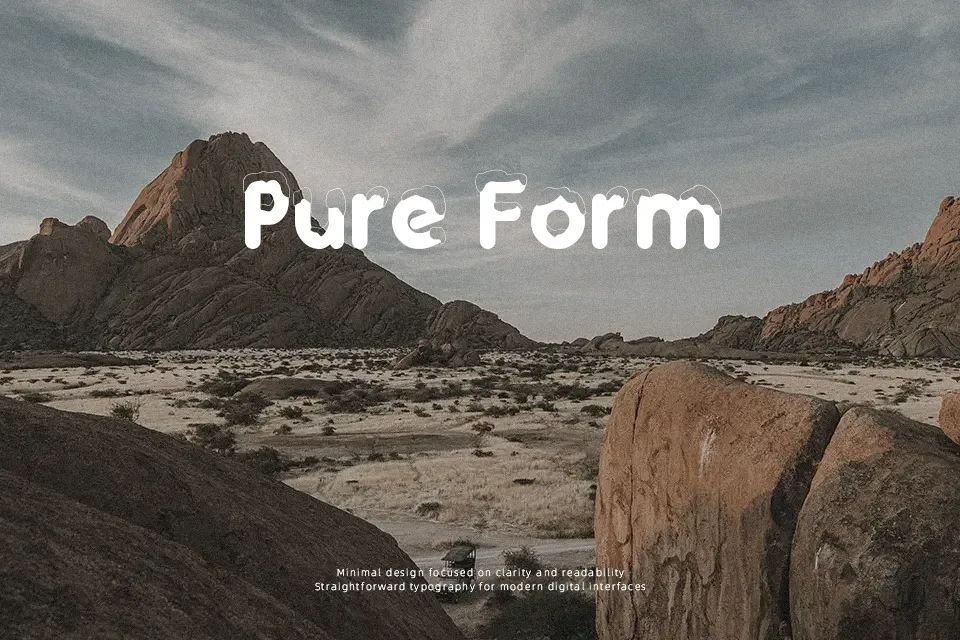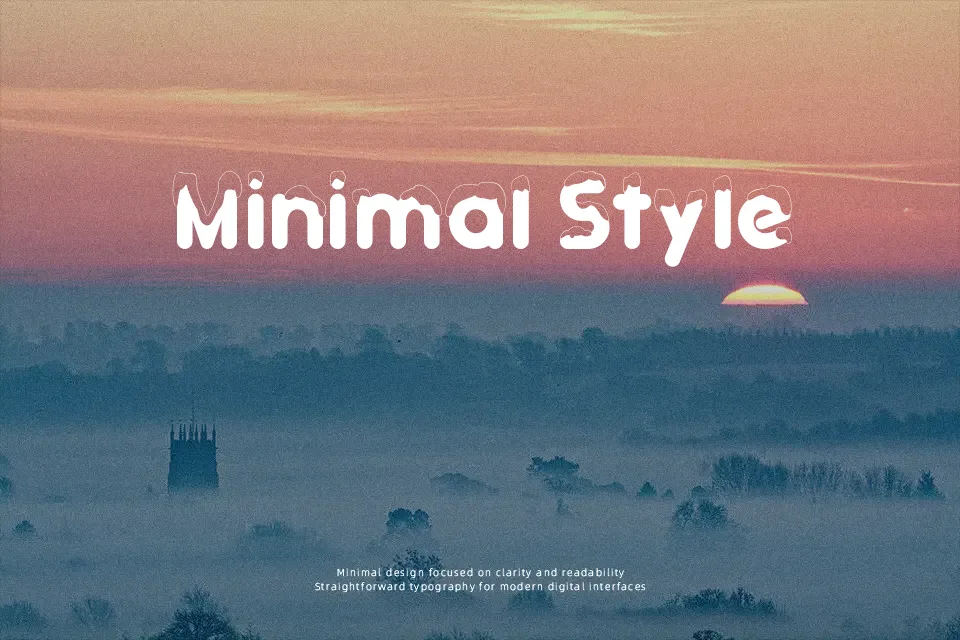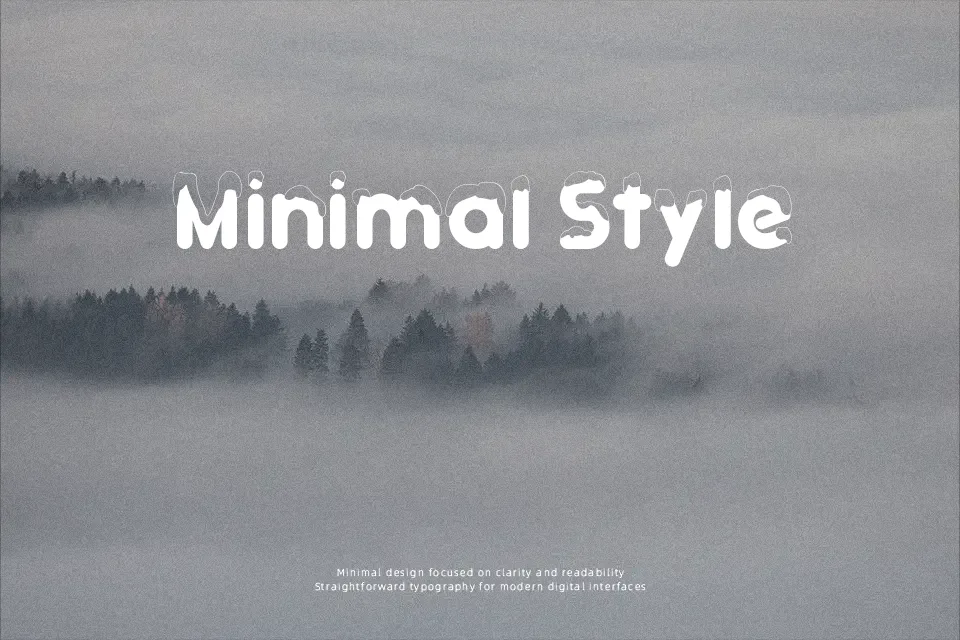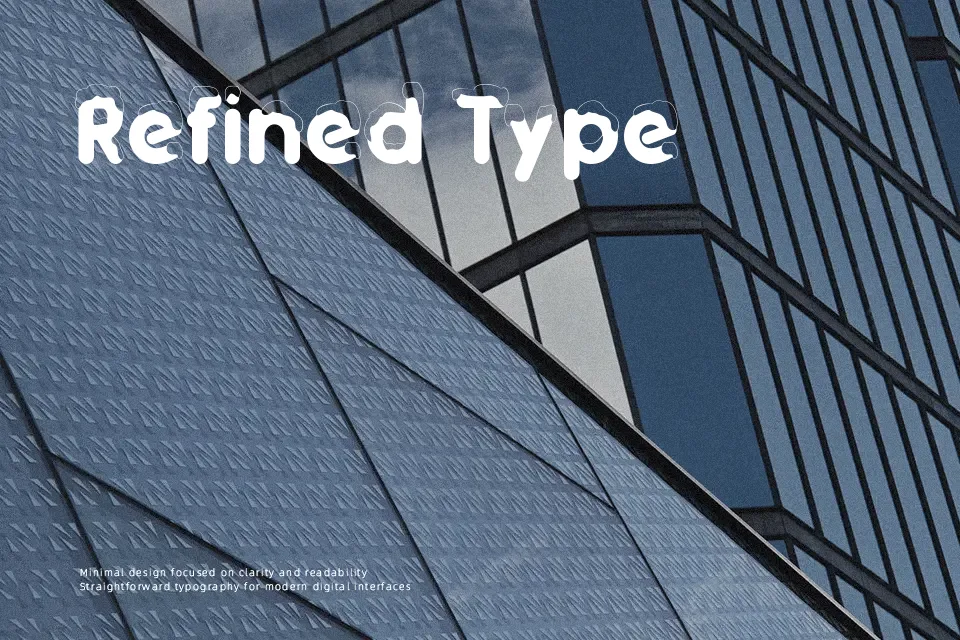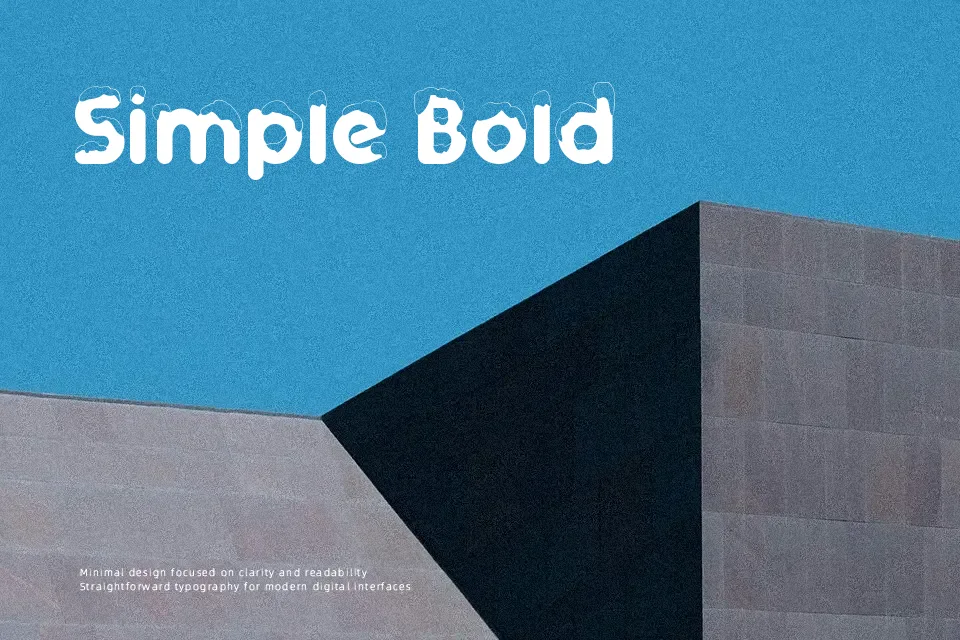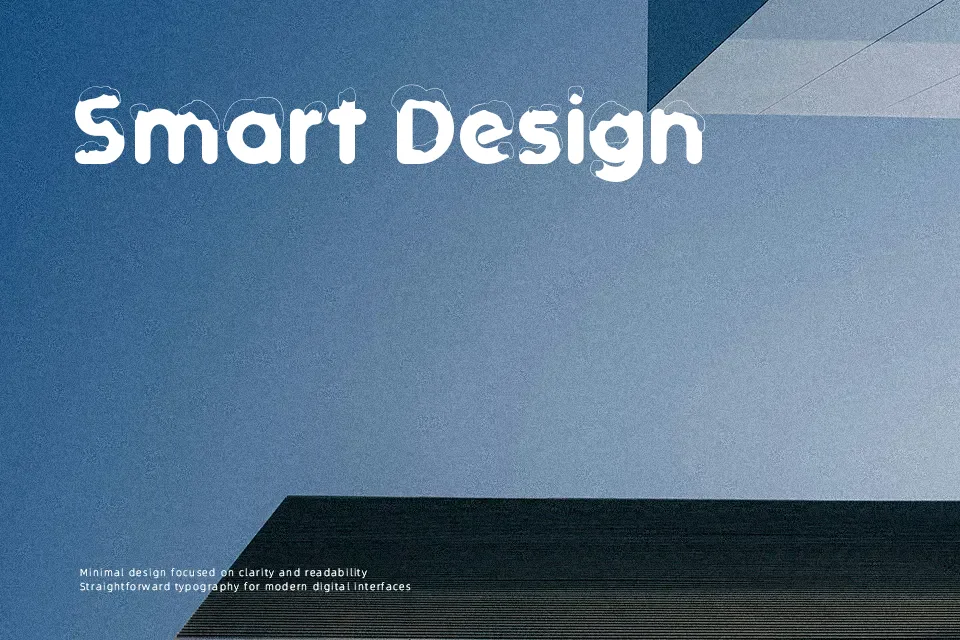
Typo Snowy Font
Typo Snowy Font uses heavy, rounded display letters topped with irregular snow-like shapes that create a cold, playful seasonal effect. The base forms appear broad and bold, while the decorative upper edges introduce uneven contours and visual texture. Spacing is most effective in short words and larger settings, where the letter silhouettes remain distinct. It suits winter-themed headlines, packaging, and poster copy more than functional text. The strong weight helps the design hold attention at display sizes, but the decorative details can make small text and continuous reading feel crowded.
Best For: winter event posters,Christmas packaging,holiday social media graphics,seasonal product labels
Perfect for christmas, headline, and packaging, with a bold and decorative style.